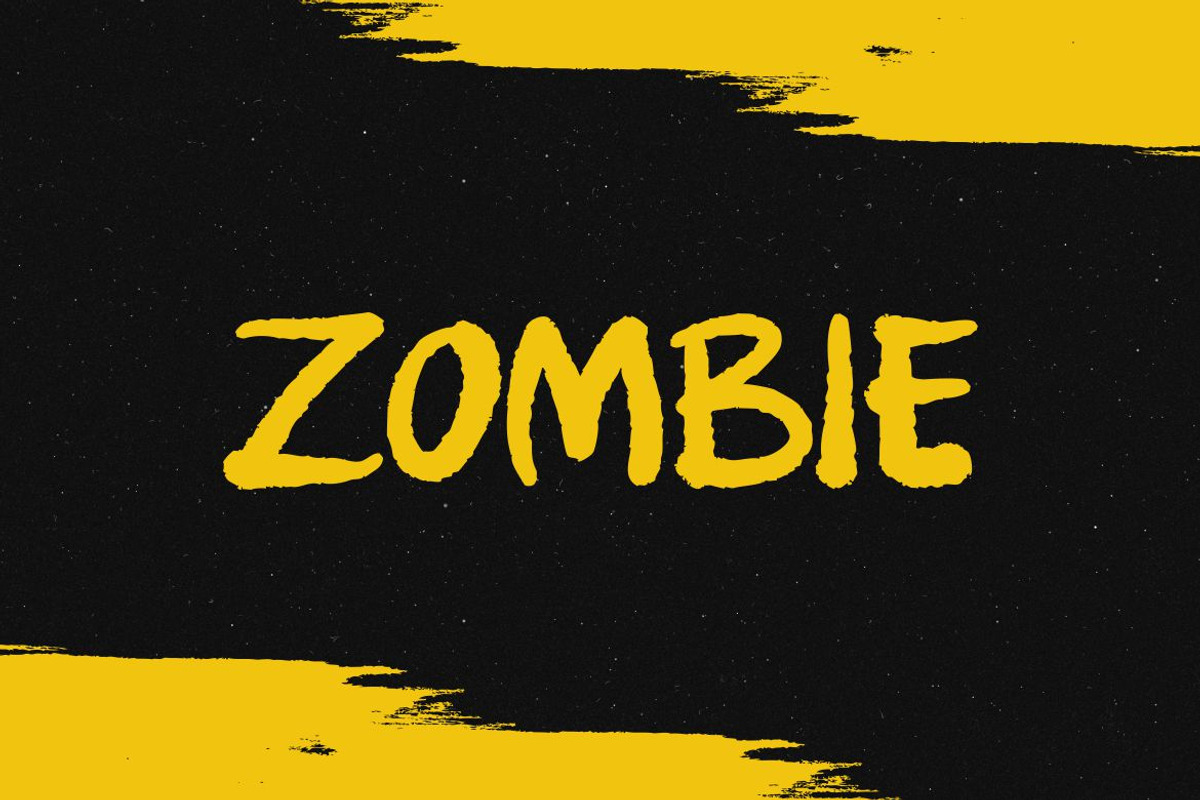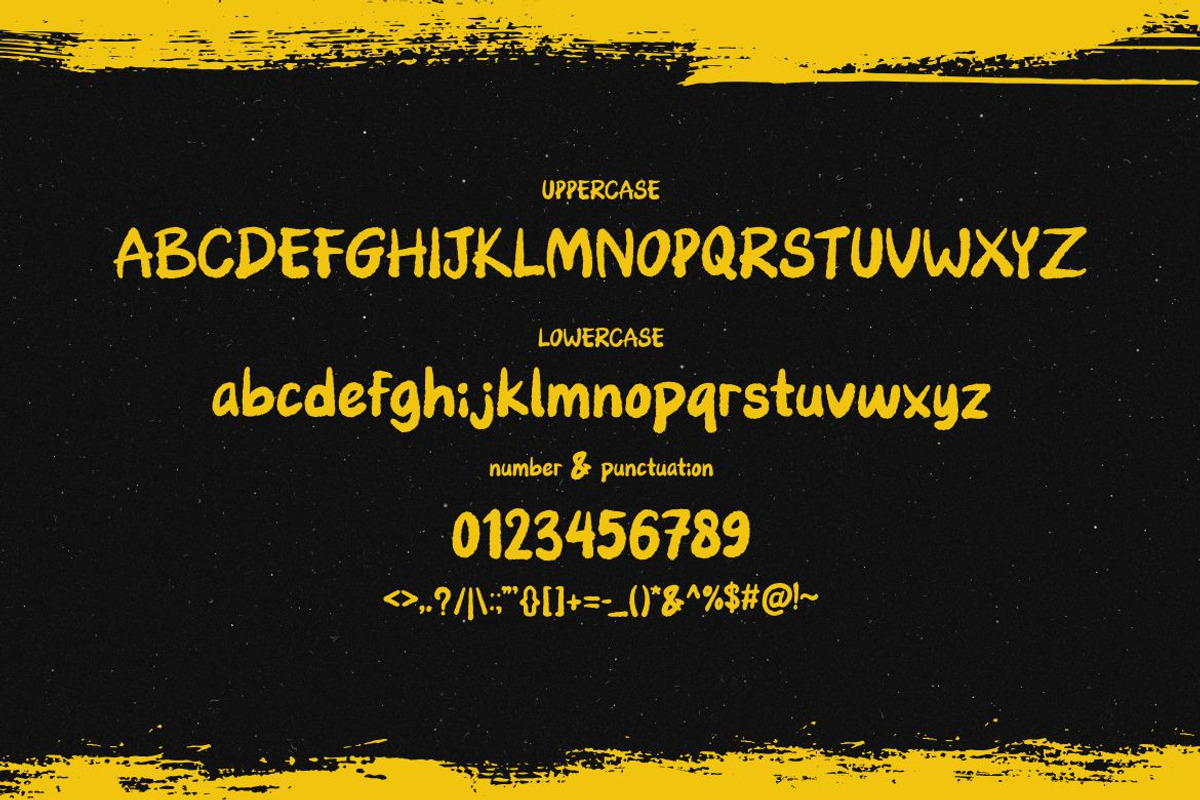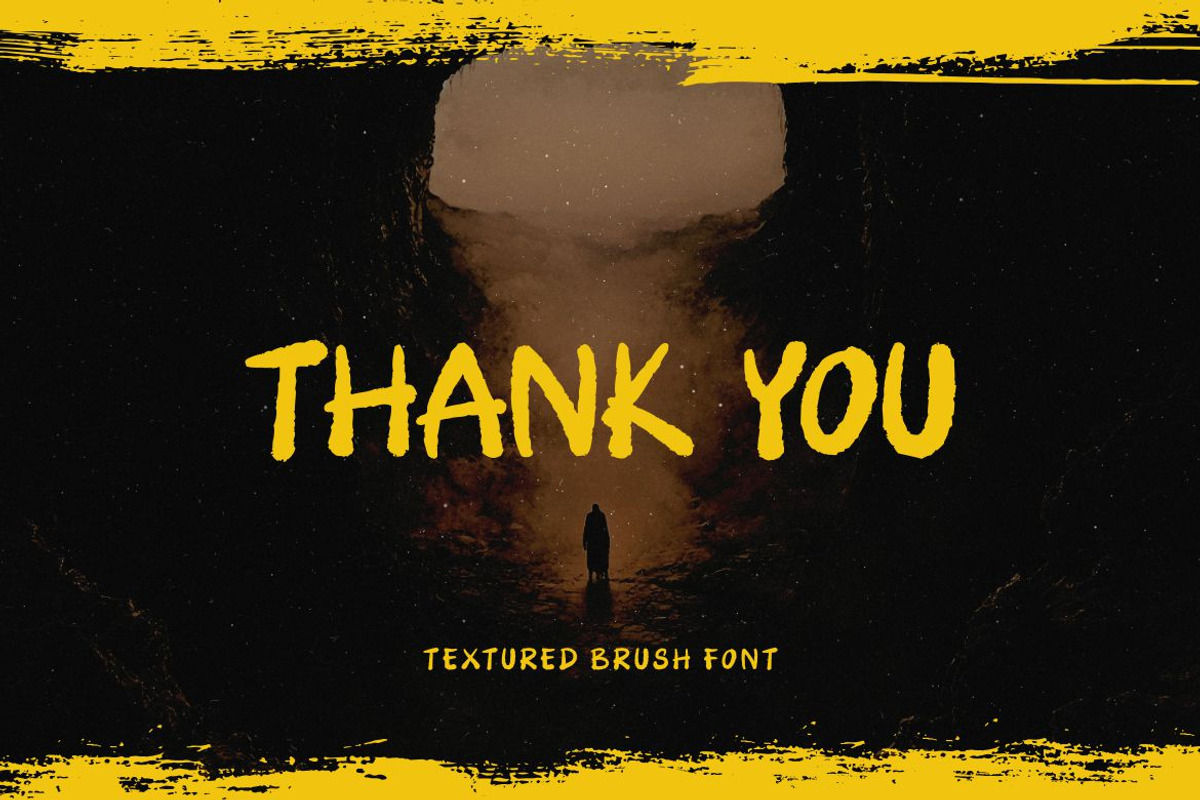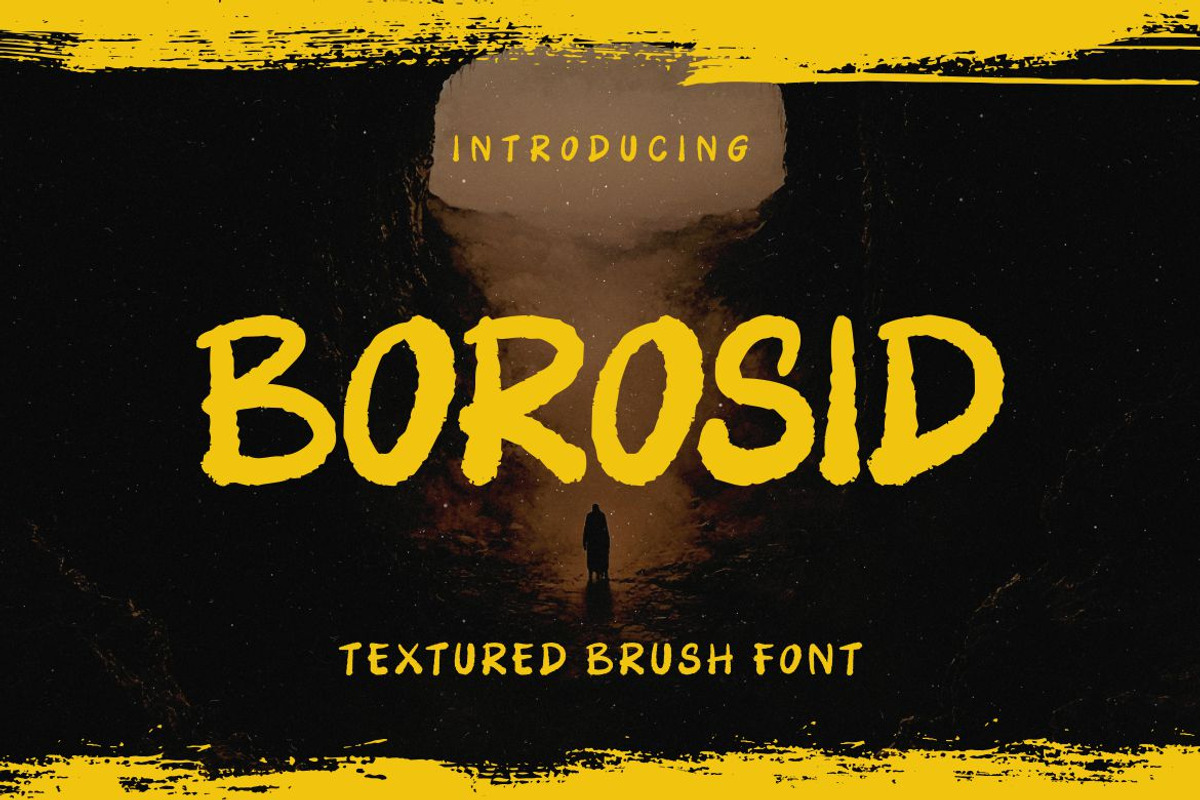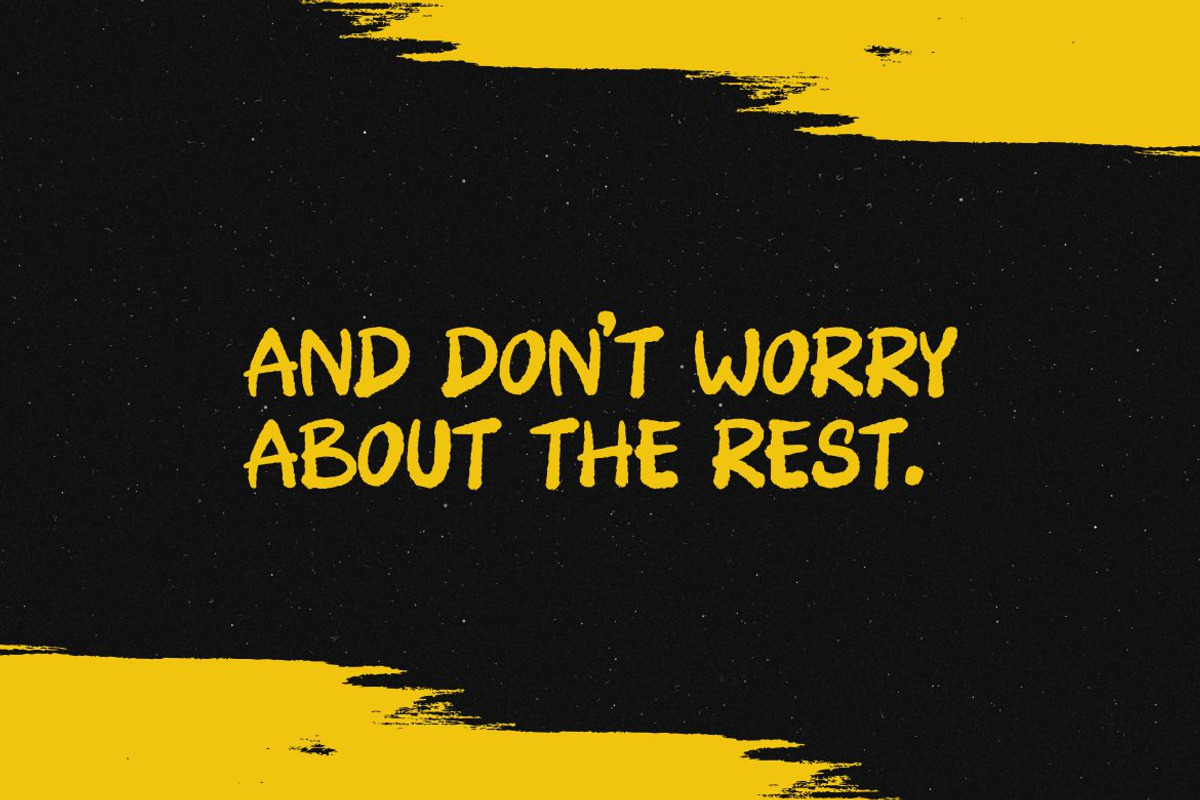
Borosid - Textured Brush Font
Introducing BOROSID , a cool and elegant Textured Brush Font. Elegant font feel. This font gives you a beautiful and modern atmosphere. suitable for posters, book covers, cards, merchandise, etc.